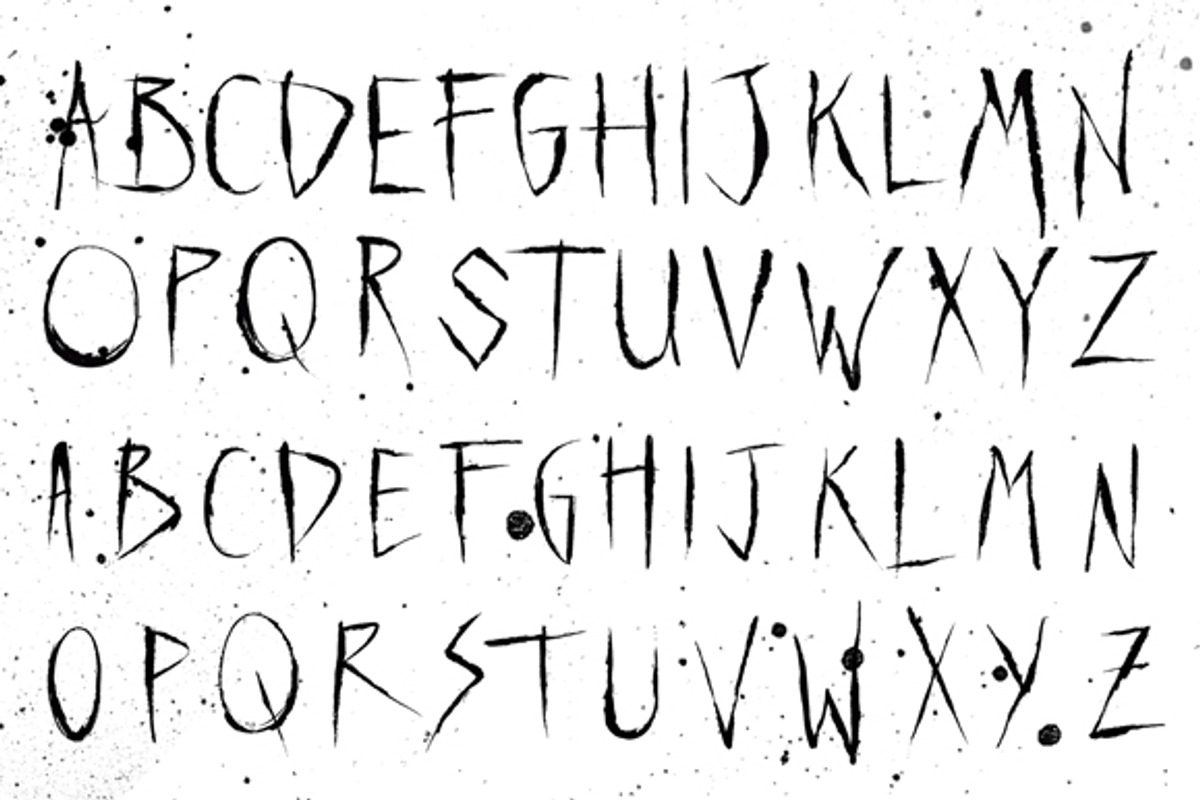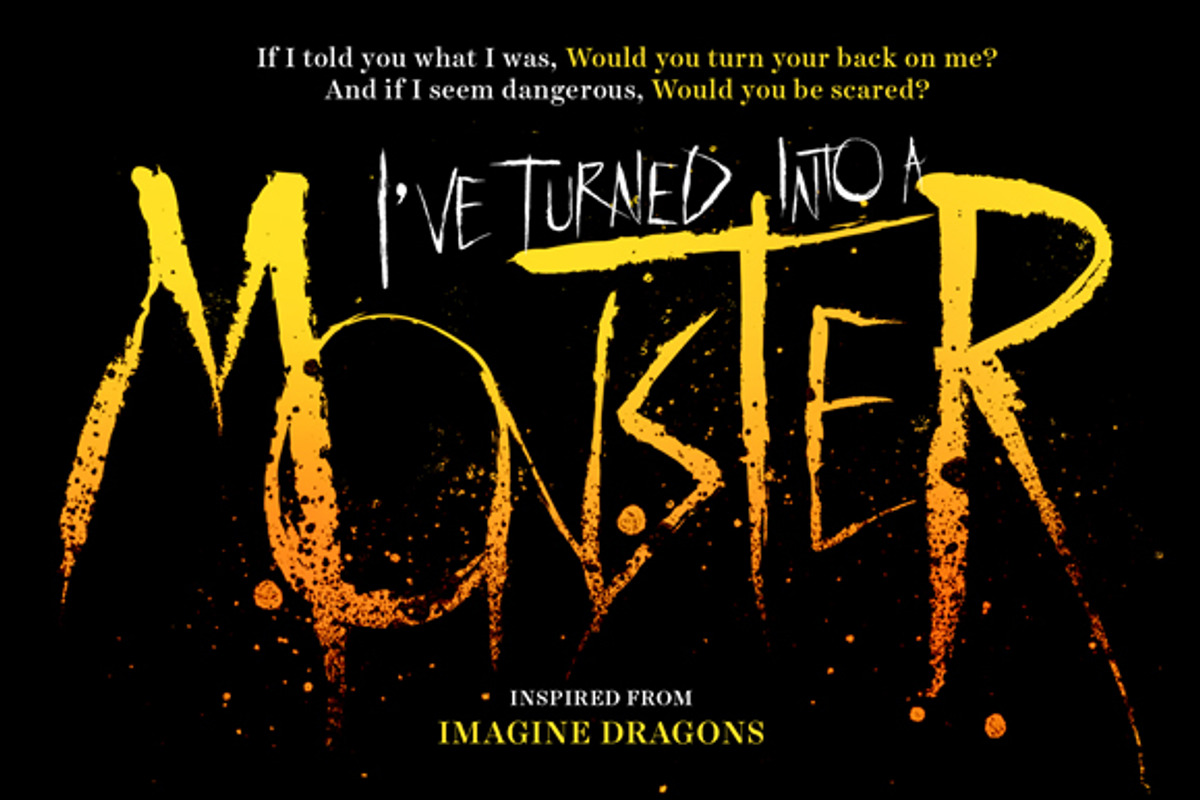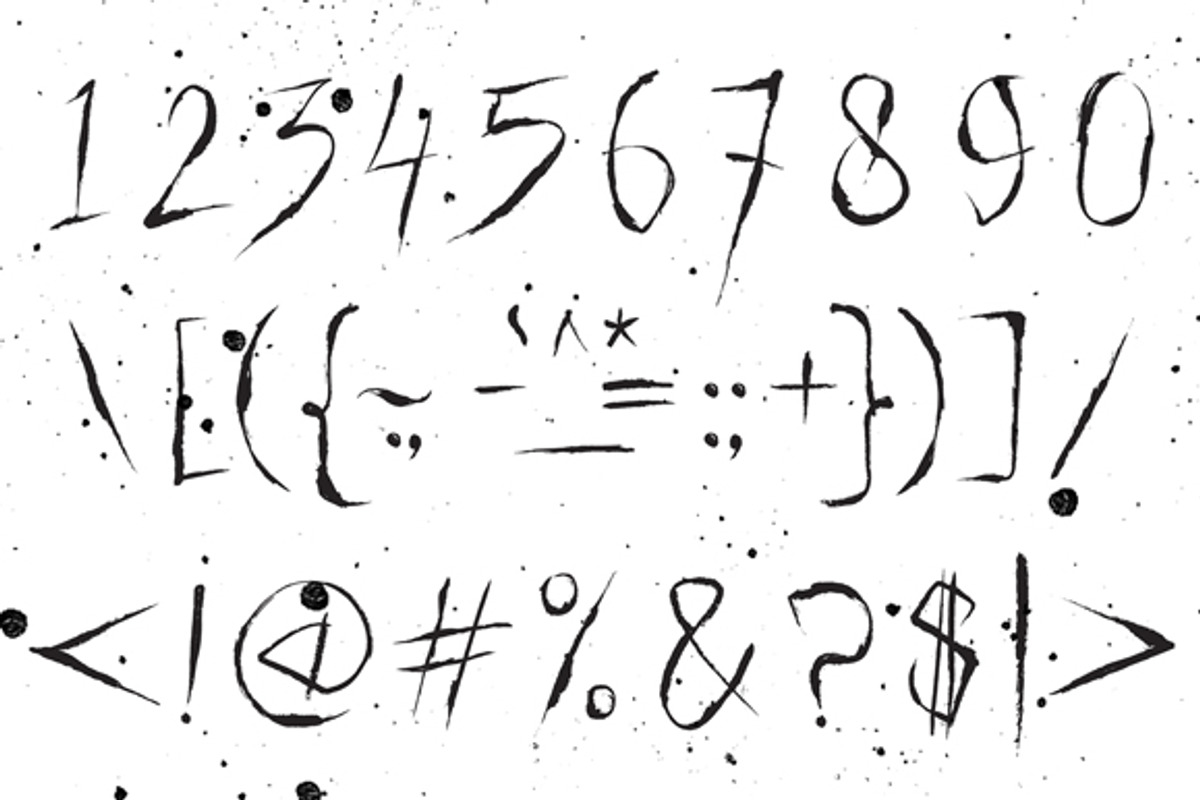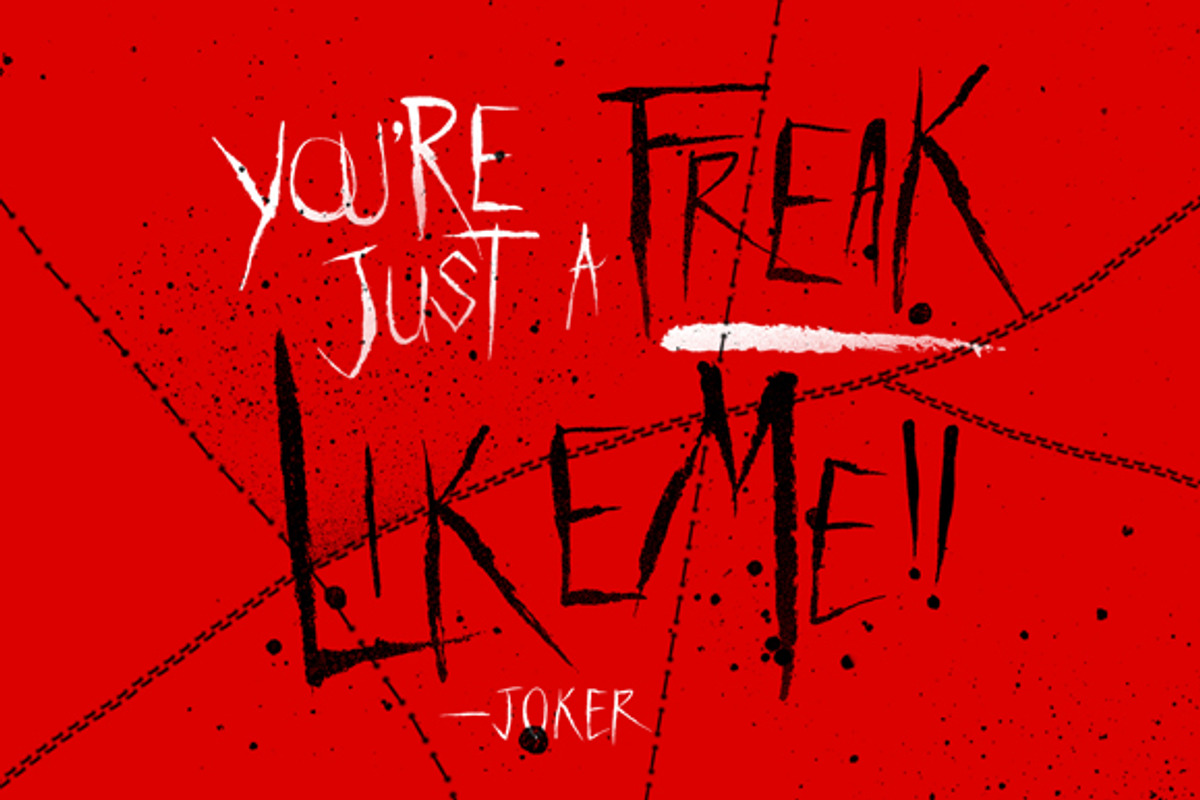
Ririwa Typeface
Ririwa Typeface by Adhreza is a font selected for branding, posters, packaging, typography.
- The characters prefers to use in expressional and disordered with different size, position and ignore the baseline.
Why Ririwa Typeface is worth a look
Ririwa Typeface by Adhreza fits naturally into Branding, posters, packaging, typography.